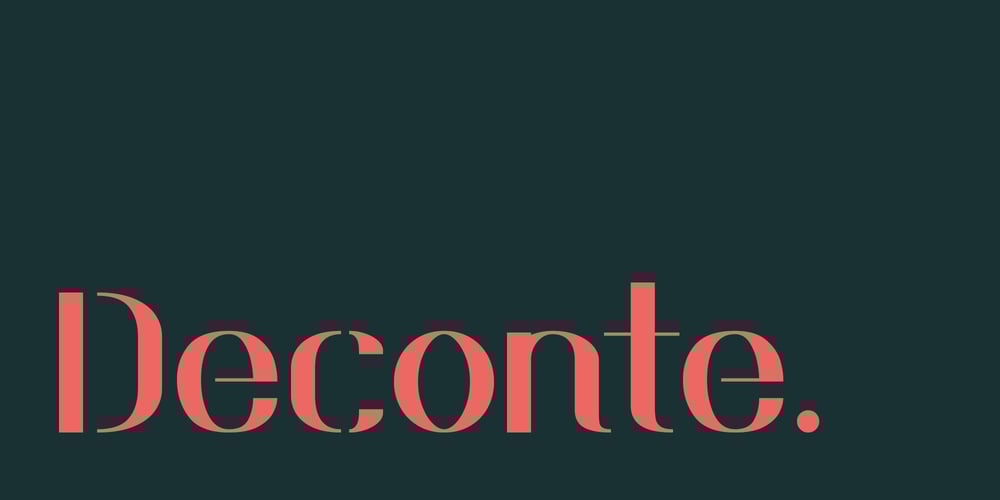
Deconte Font Family was designed by Taka Ikari and published by Outerend. Deconte contains 1 styles and family package options. Introducing ‘Deconte,’ a captivating new font that fuses the elegance of Art Deco with a playful retro vibe, all while embracing a modern aesthetic. Its unique letter forms feature bold geometric shapes and intricate line details, striking a perfect balance between nostalgia and contemporary flair. Ideal for branding, posters, and any creative project that seeks to evoke a sense of timeless charm with a fresh twist, ‘Deconte’ brings a distinctive personality that stands out in today’s design landscape.